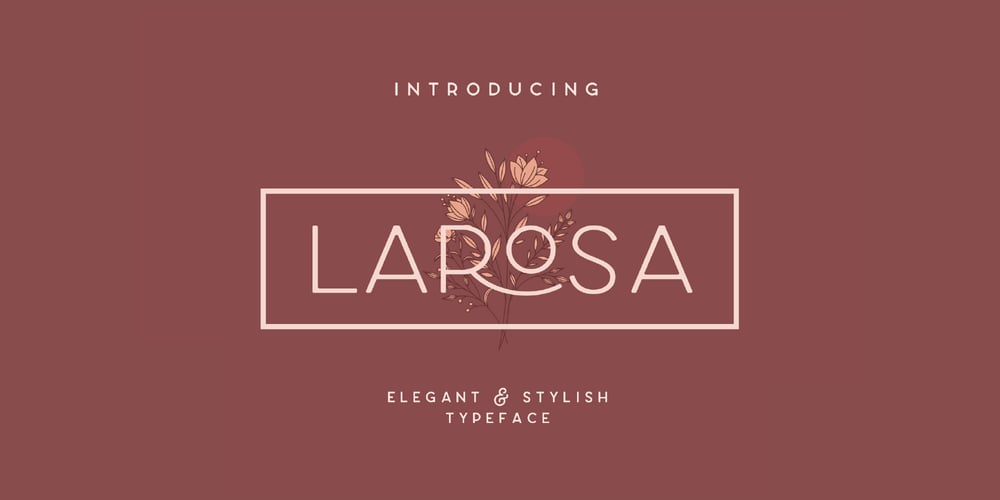
Larosa Font Family was designed by Kurt Harahap and published by Kaligra.co. Larosa contains 7 styles and family package options. Introducing Larosa Sans – An elegant modern sans serif with a ton of stylistic alternates to choose from. Its clean and minimalistic, works wonderfully on its own for logos, headlines, posters, packaging and many more! And with seven different weights to choose from, your option to create more unique and versatile designs is a lot wider. Have fun and create more. Your imagination is your only limit!!HOW TO ACCESS ALTERNATIVE CHARACTERSOpen glyphs panel:In Adobe Photoshop go to Window – glyphsIn Adobe Illustrator go to Type – glyphs